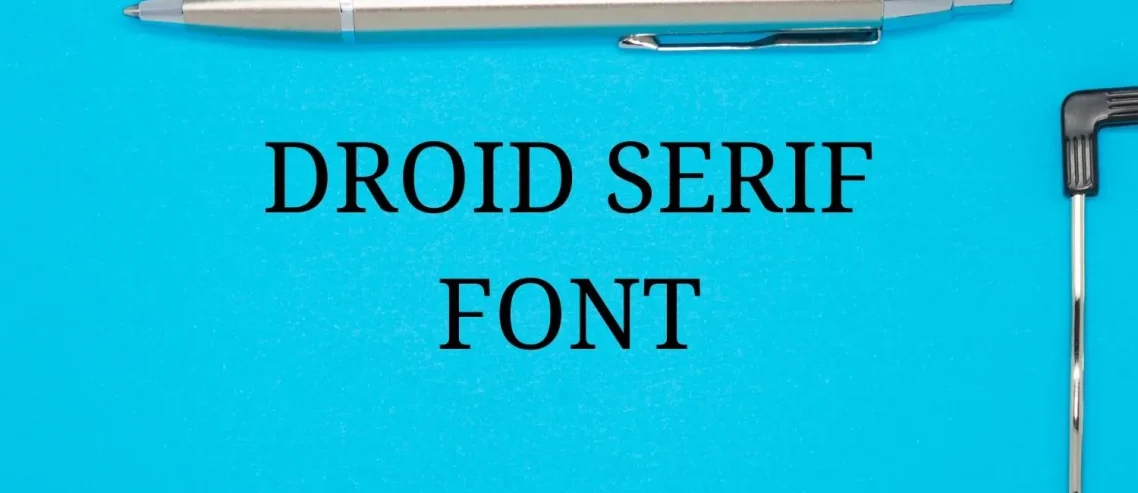
Droid Serif font is a very high-quality typeface that is very popular among designers because of its look. This typeface belongs to a Serif font family. This typeface is released through the Open-Source Font foundry.
The Arvo Serif typeface is looking very similar to this typeface because of its glyphs. If you want to get the best result with the help of the pairing function then combine this font with Avenir font.
Droid Serif Font Info
| Name | Droid Serif Font |
| Designer | Jonathan Lopez |
| Style | Serif |